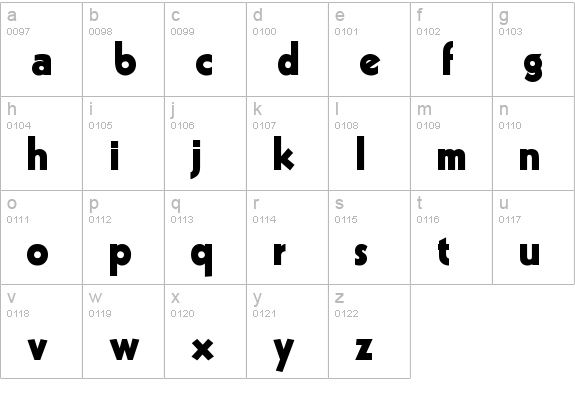
Grizzly Regular is the standard, neutral variant in the Grizzly typeface family \xE2\x80\x94 well suited to general body text, paragraphs, and standard typographic work.
Grizzly Regular font is a bold and robust typeface that exudes strength and power. Its thick, sturdy letterforms make a bold statement and command attention. Whether used for headlines, logos, or posters, Grizzly Regular adds a touch of ruggedness and masculinity to any design. What's even better is that Grizzly Regular font is available for free download at FontsMarket.com. This means you can easily access this powerful font and incorporate it into your projects without breaking the bank. So why wait? Download Grizzly Regular today and unleash its untamed energy in your designs!